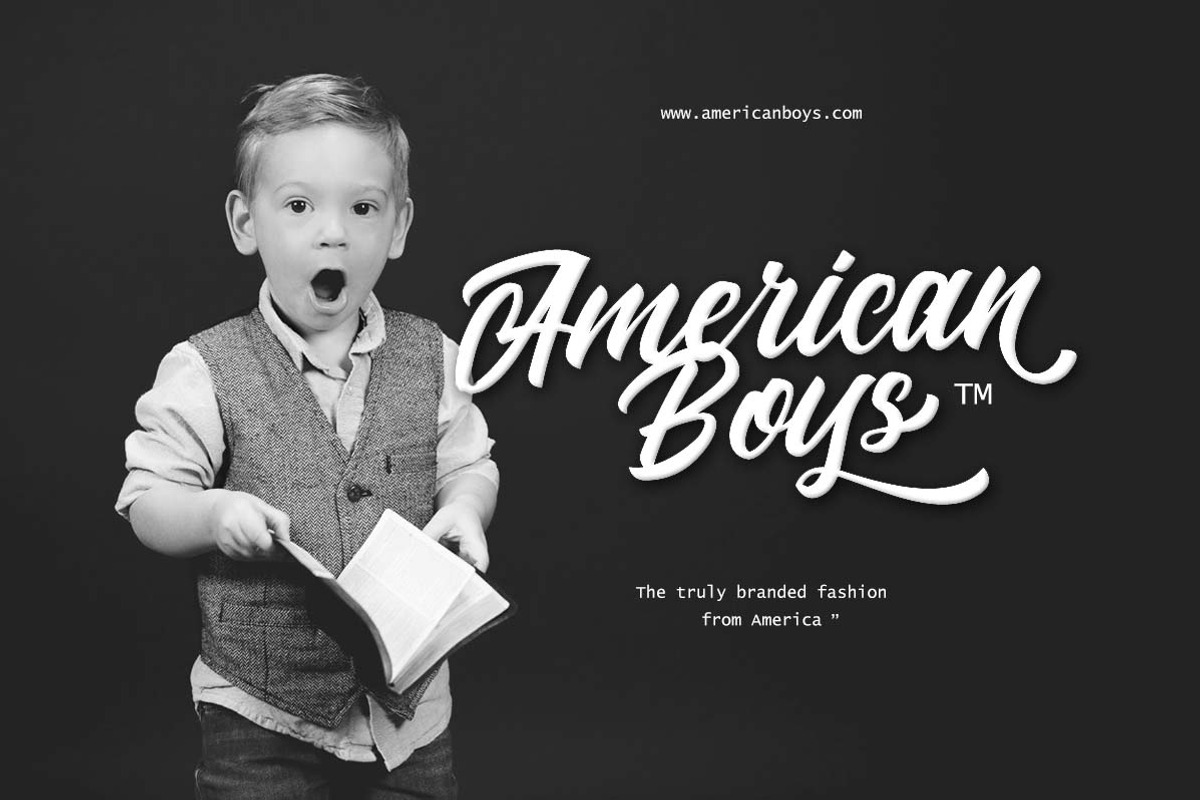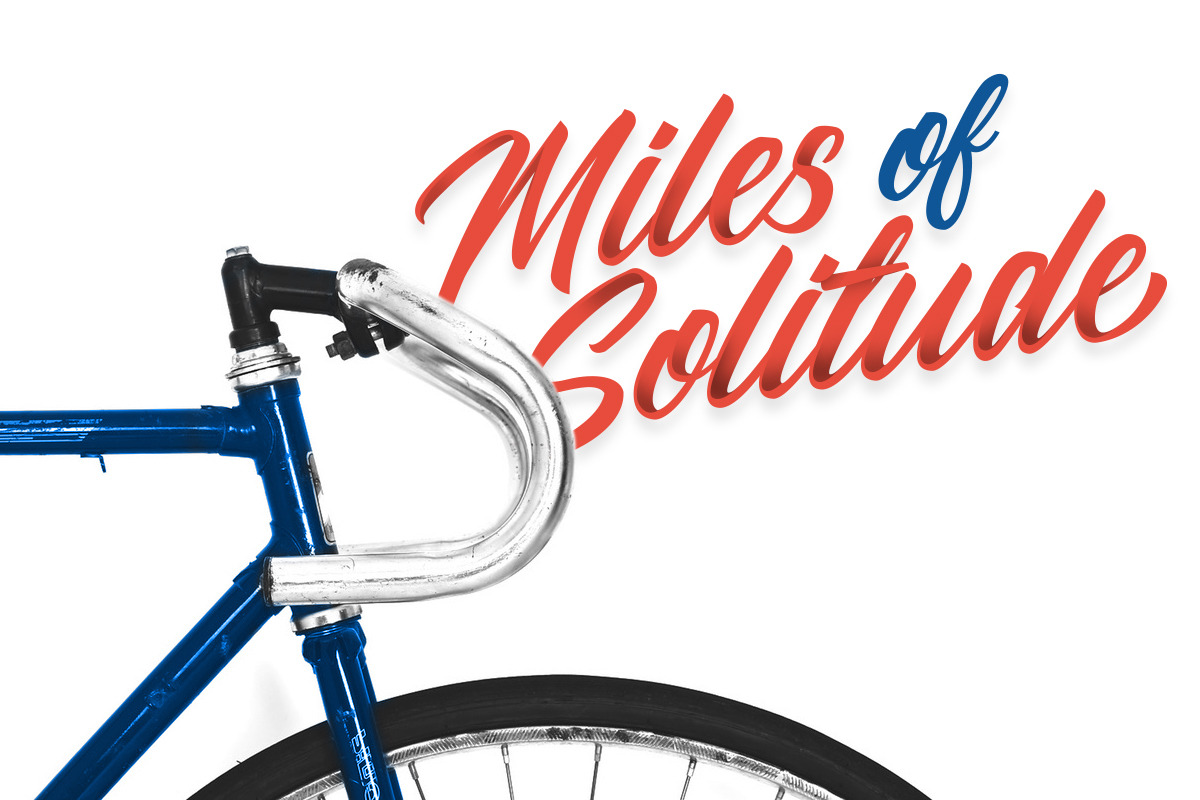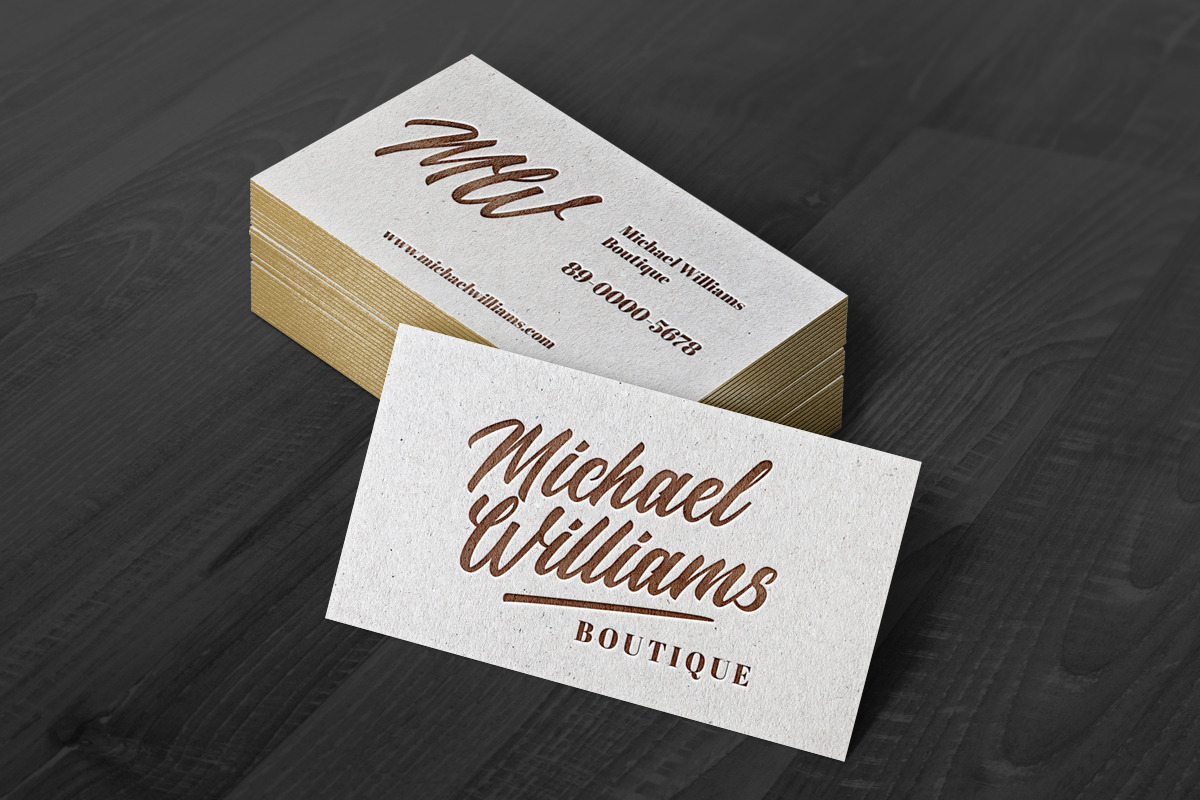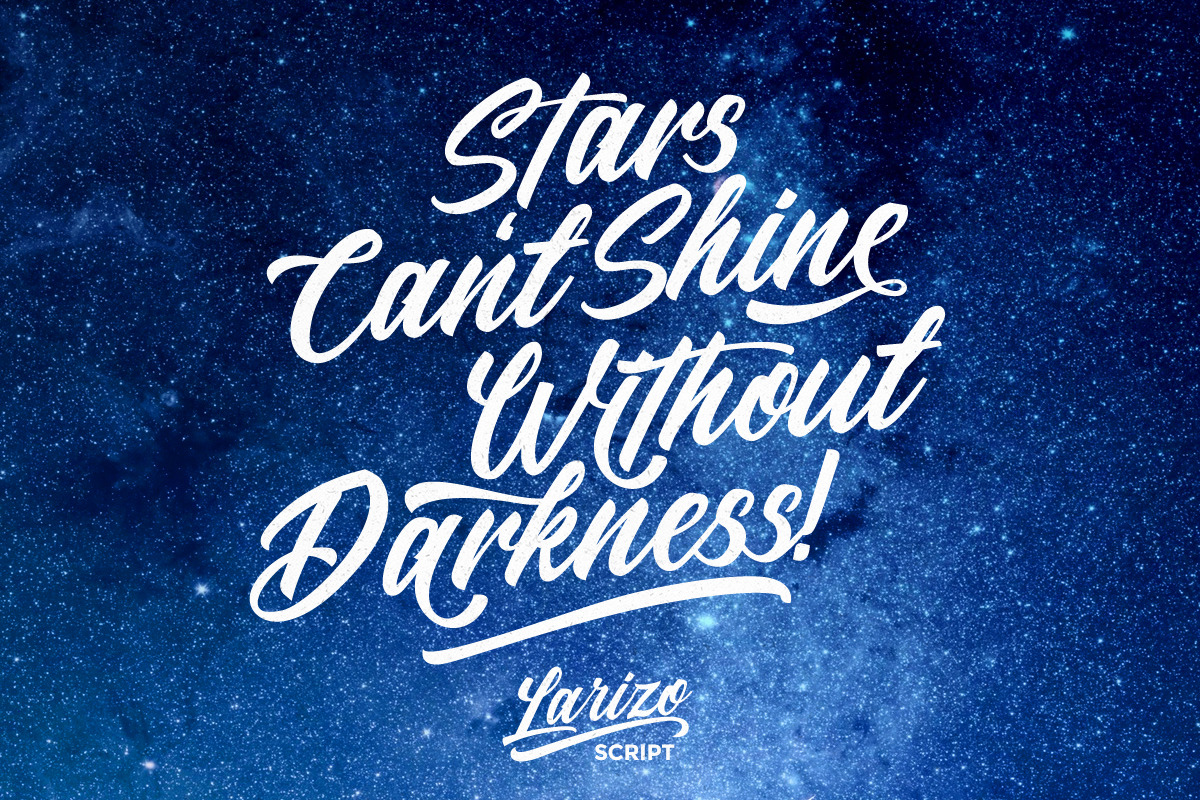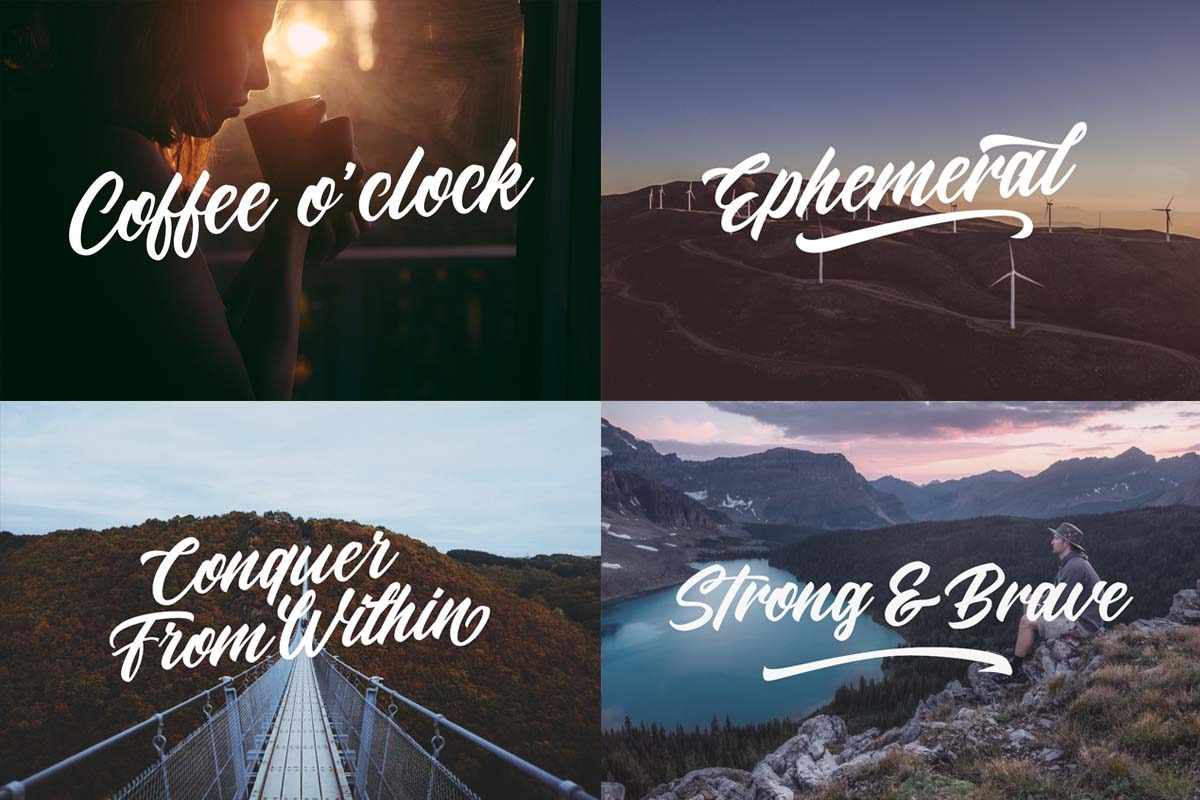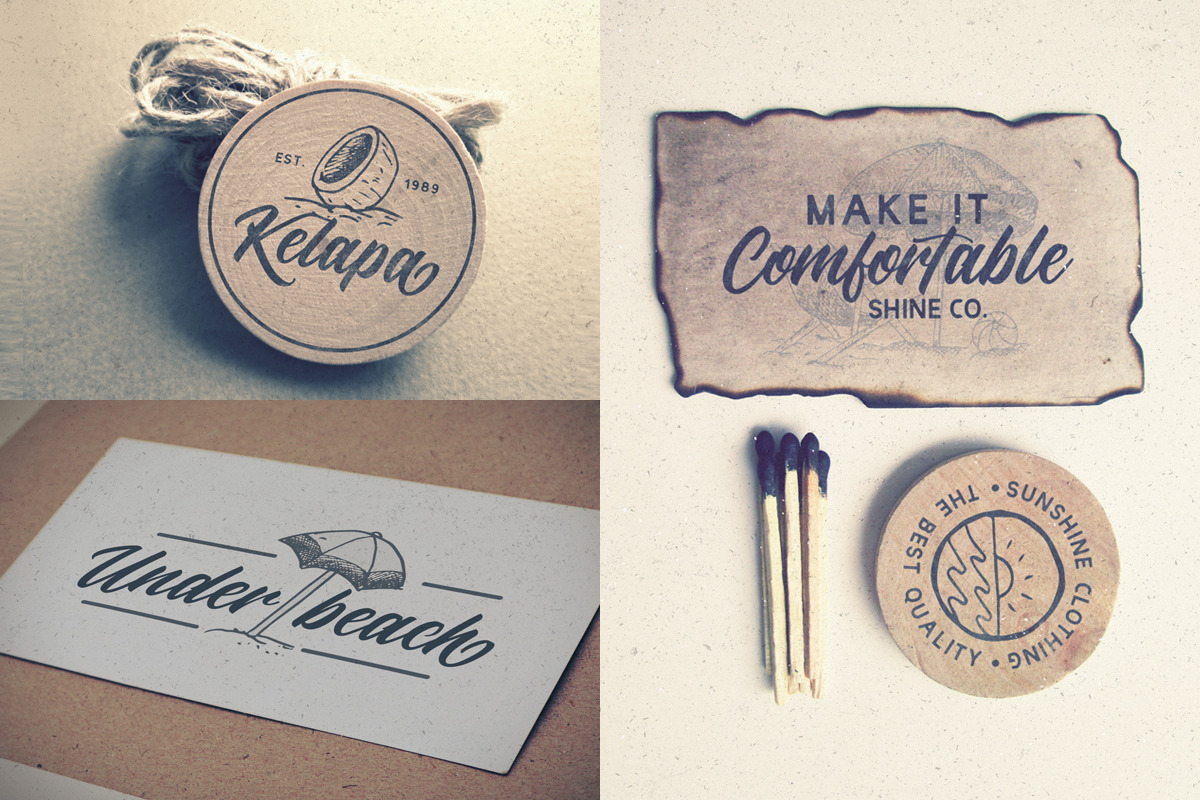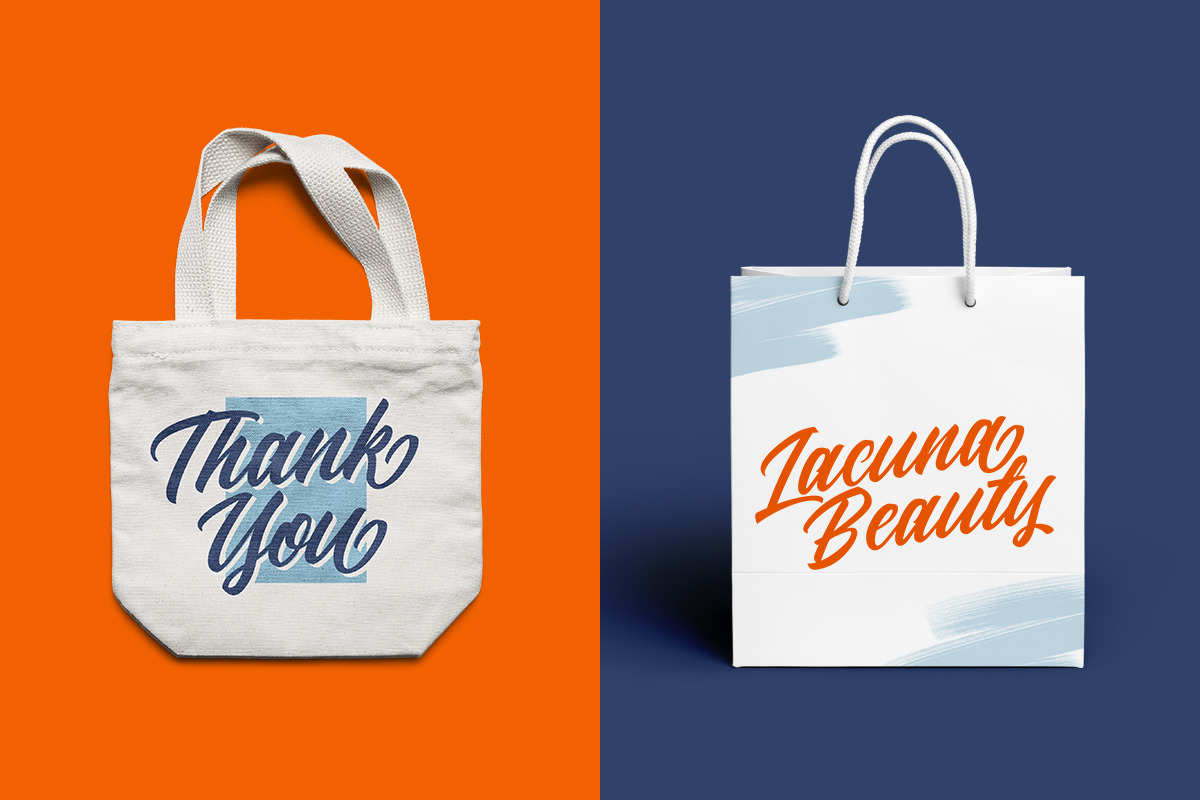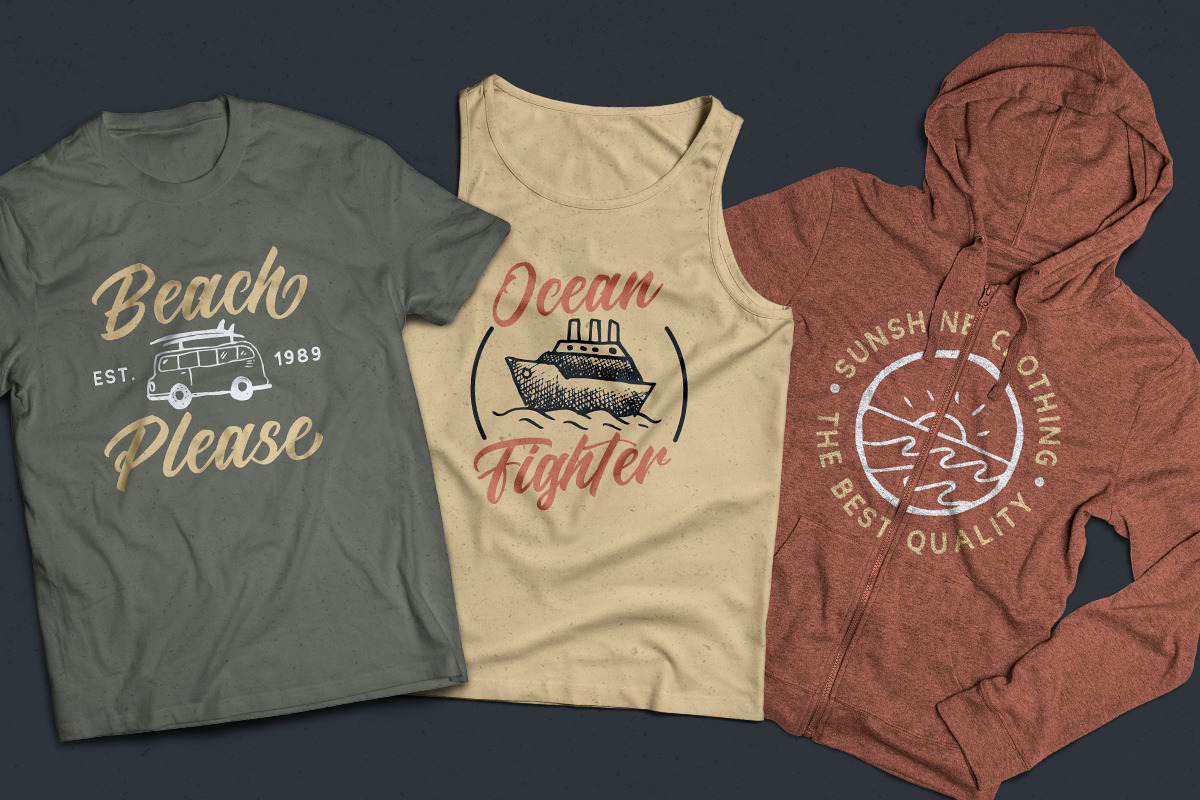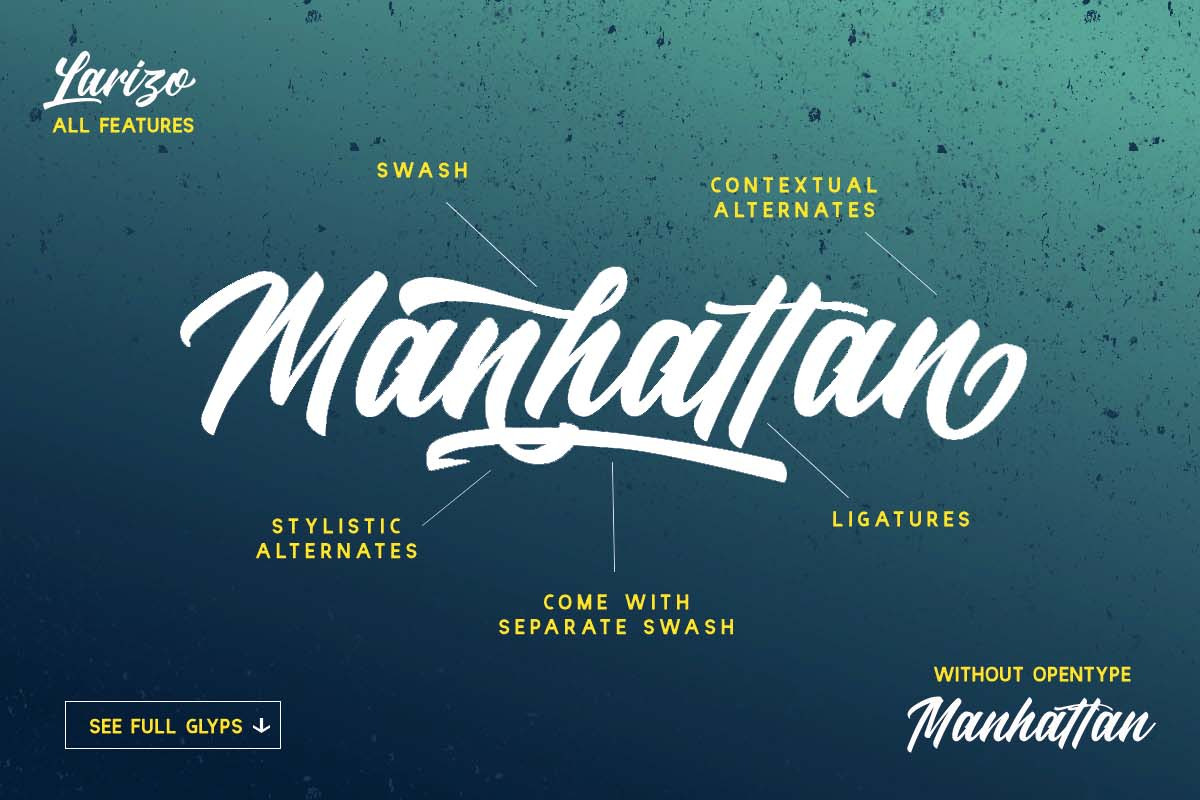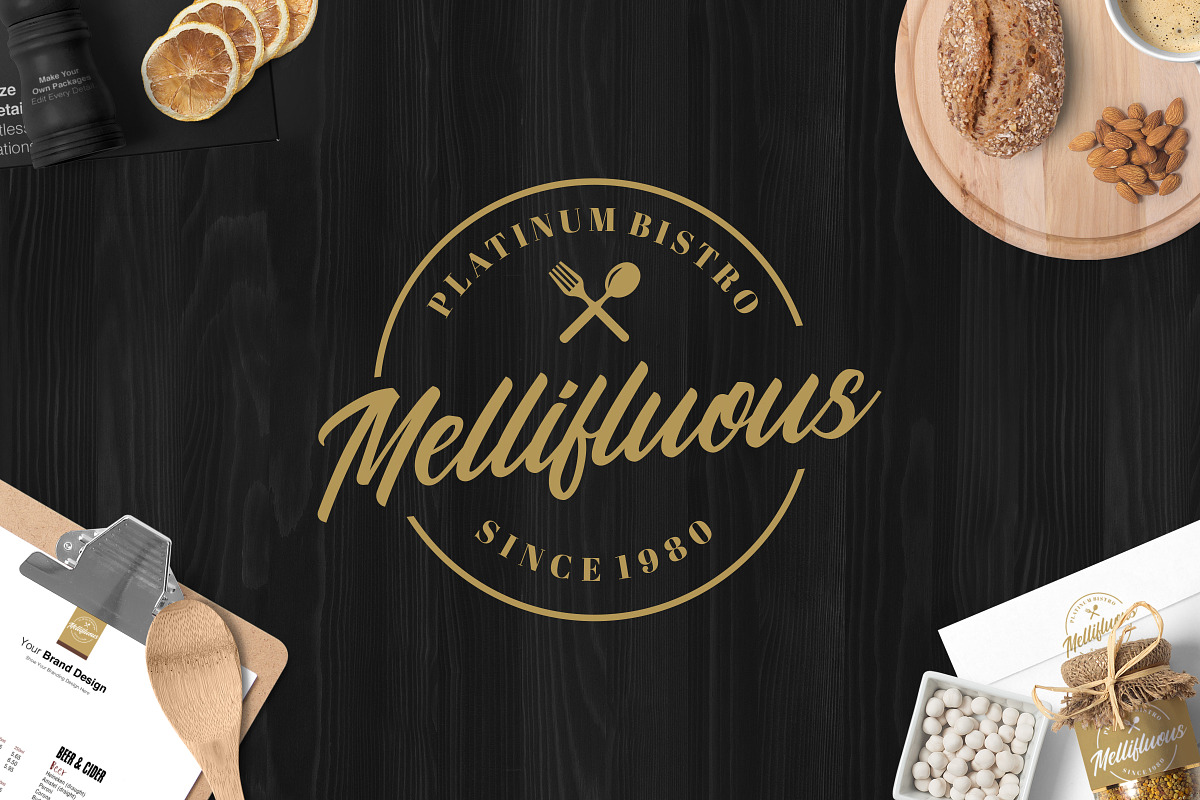
Larizo Script Font
Introducing, Larizo Script. A truly personalized handmade lettering that transformed into a font! This font has unique character and flow feel which is perfect to use in logotype / wordmark, badge, sign board, poster, headline text, apparel, wedding invitation, etc. This font has many opentype features like ligature, stylistic alternate, contextual alternate, swash, etc and support multi language. You will also get ready made logo templates and icons in beach theme!